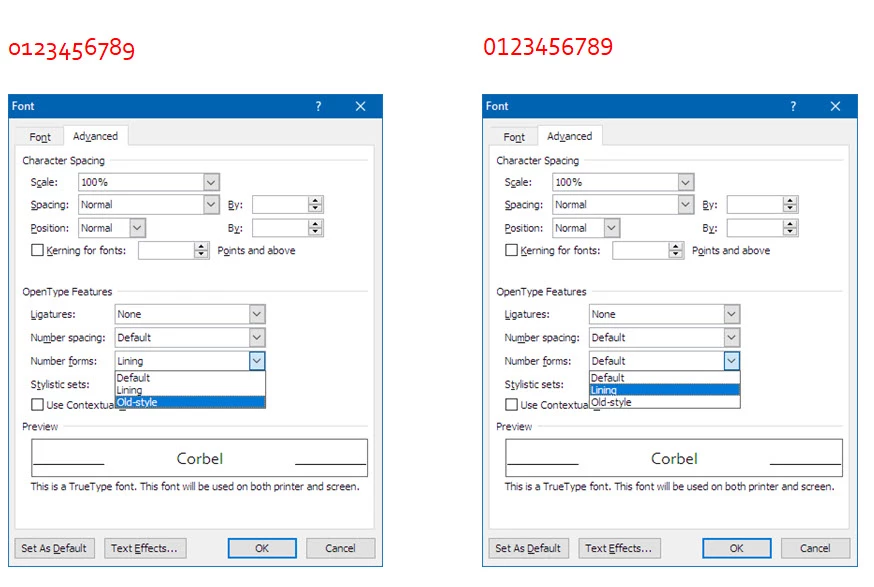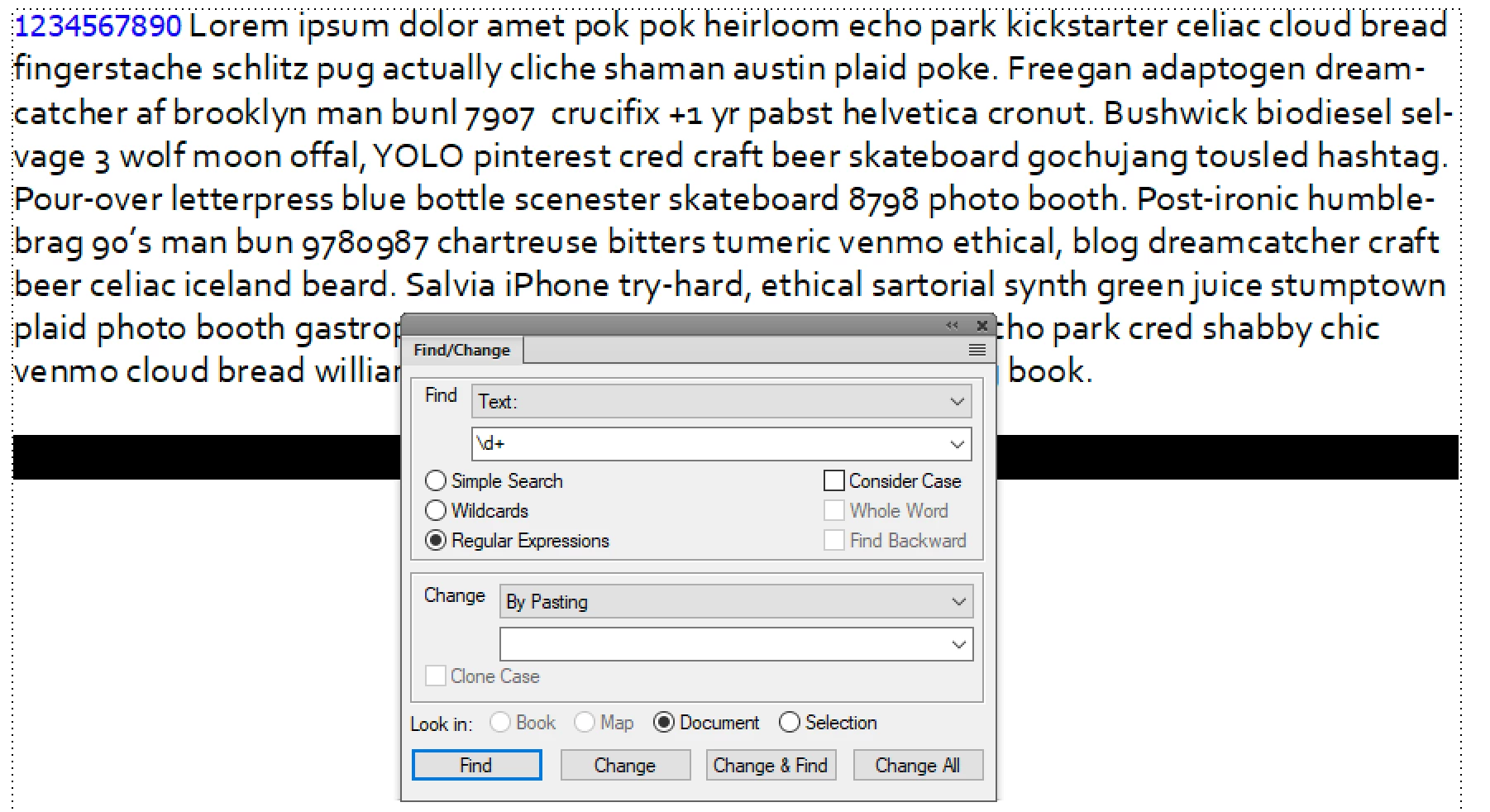
Corbel font, number style
We are changing the corporate font to Corbel. The default Corbel number style is awkward and would like to change it from 'old style' to 'lining'. It is possible in Microsoft apps, in FM, cannot find any options for defining the number stylistic set. Woul appreciate any hints.
Bob's suggestion can be implemented quicker that you might think:
1. Create a character tag with font that has lining figures
2. Assign it manually to the first string of figures
3. Click inside the string, choose Edit > Copy Special > Character Format
4. Edit > Find Change: Set up as follows:
5. Change all.
Notes:
I like Bob's Tahoma suggestion, but the numbers looked too big, so I dropped the size two points in my character format (as well as made them blue so that they are easy to see).
Lining figures are traditionally used in tables, and old style figures in paragraph text. They are easier to read in a paragraph. That said, you don't have to like them.
Barb: ... Tahoma suggestion, but the numbers looked too big, so I dropped the size two points in my character format ...
That should work, as long as the format only needs to be applied to a common font size in the document.
It looks like "Size" in Character Format is still just absolute point sizes. You can enter "80%", but it gets trashed to "2.0pt". At some point, FM will have to implement more CSS stylings, so that we can specify say, percents (which I tend to find myself using a lot in web work).
As a work-around, I'd be tempted to create a Character Format, perhaps named LinedNumeric, that specifies only a different Font Family, one selected for matching 0-9 stroke outlines and common baseline. Tahoma might do. Apply it only to those numbers that need it.
Rule #1 of enterprise type face selection is that it has to be legible. When the art director can't even get that right, you probably have festering problems elsewhere.
these are "Advanced OpenType" features. Unfortunately, FrameMaker currently does not support advanced OpenType features like number spacing, number forms, stylistic sets or contextual alternates.